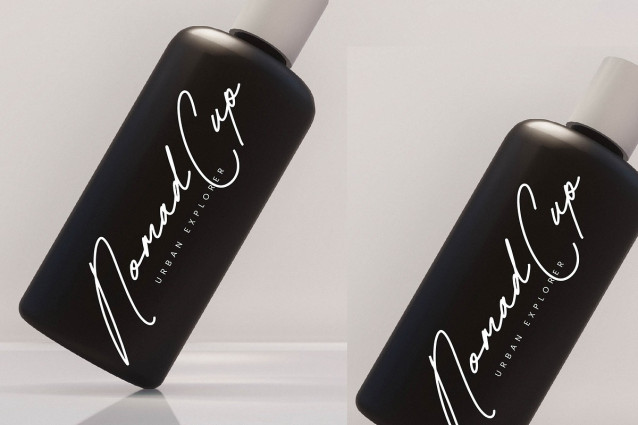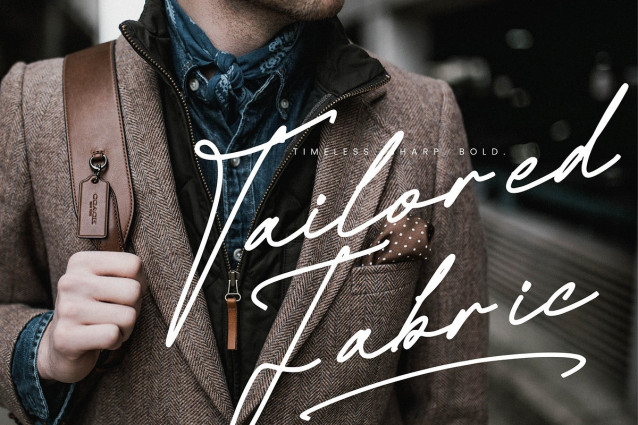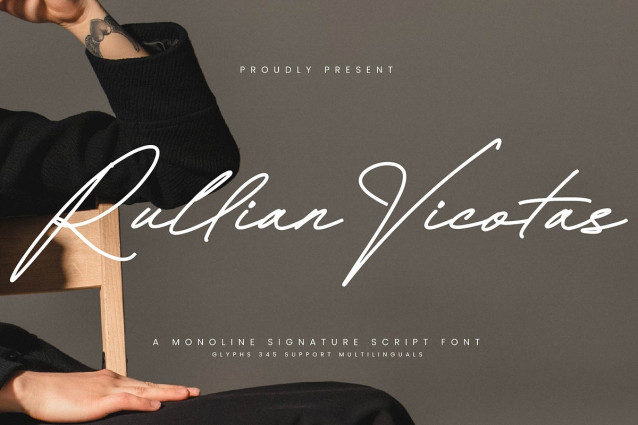
Rullian Vicotas Font
Rullian Vicotas – A Monoline Signature Script Font, from Integritype Studio, perfect for any project like: logos, branding projects, homewares designs, product packaging, mugs, quotes, posters, shopping bags, t-shirts, covers books, business cards, invitation cards, greeting cards, labels, photography, watermarks, special events and all your other luxury projects that require a premium taste.